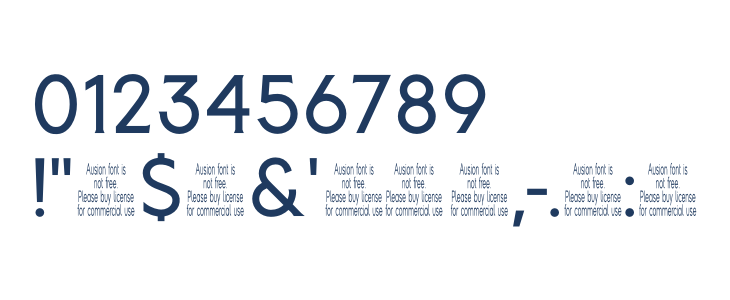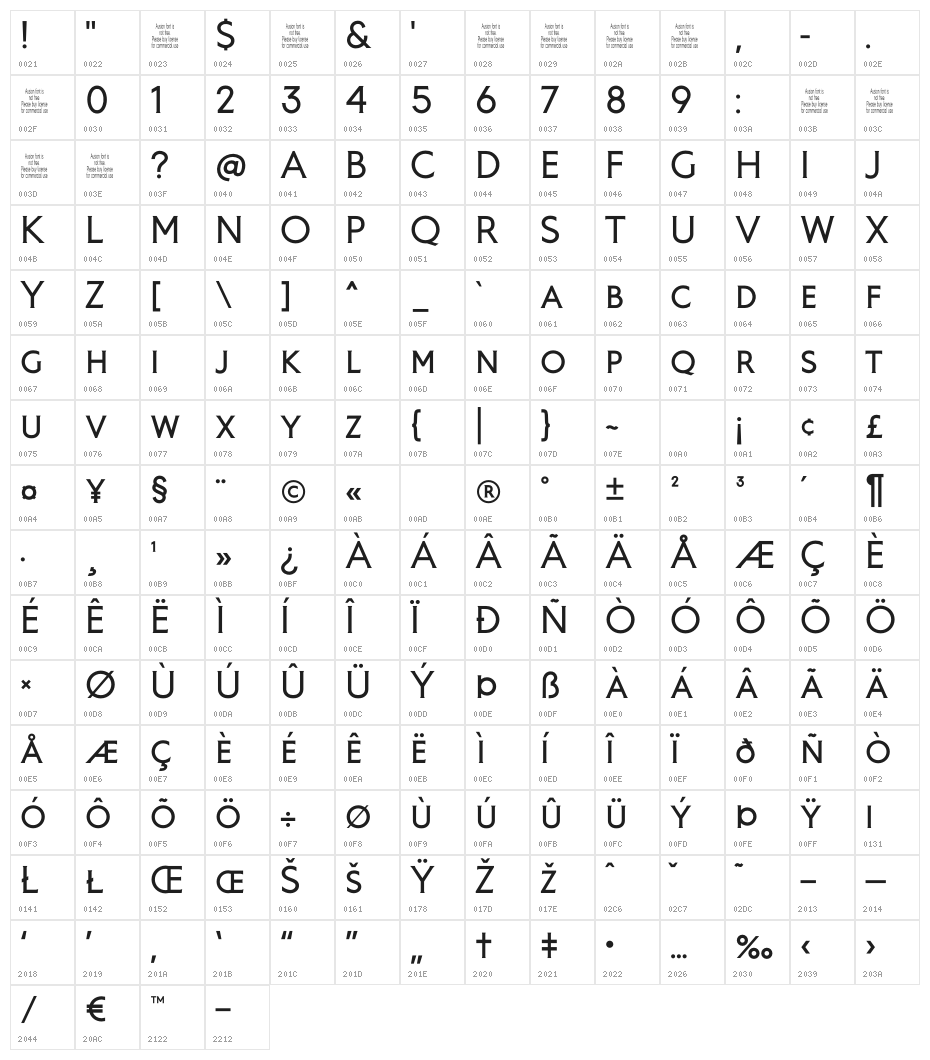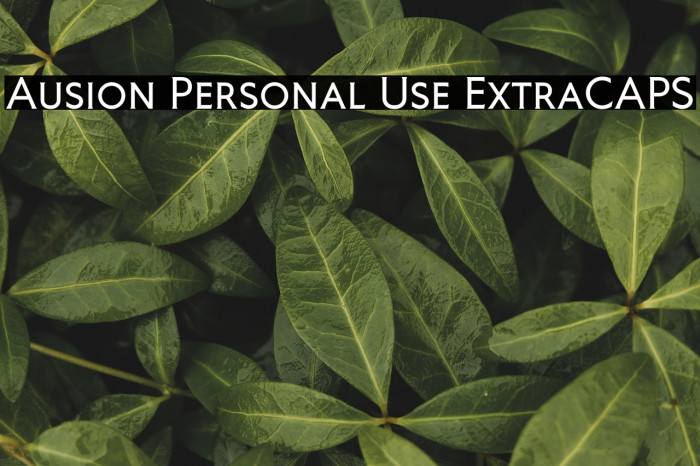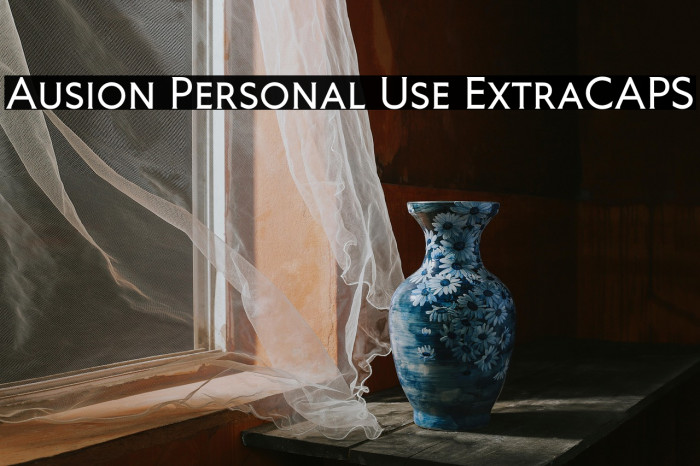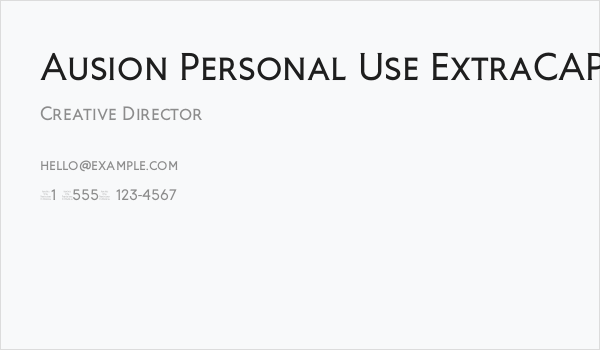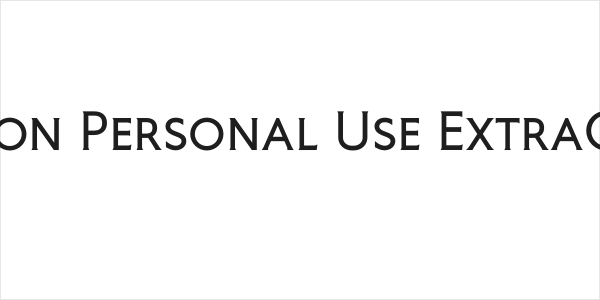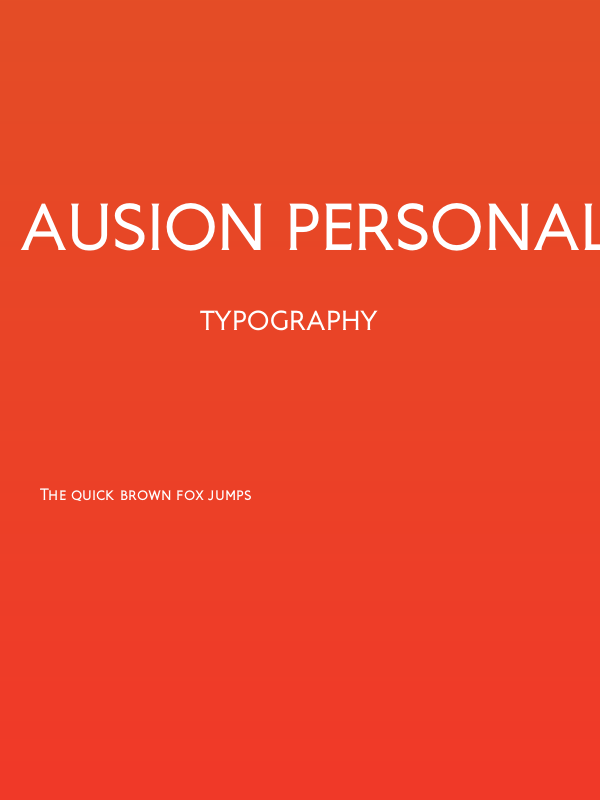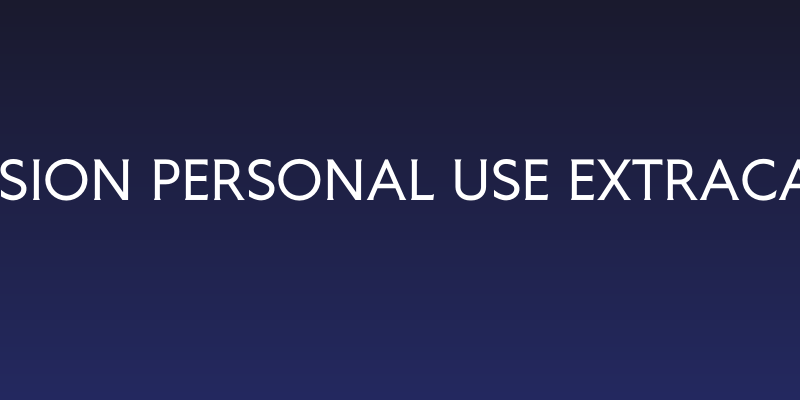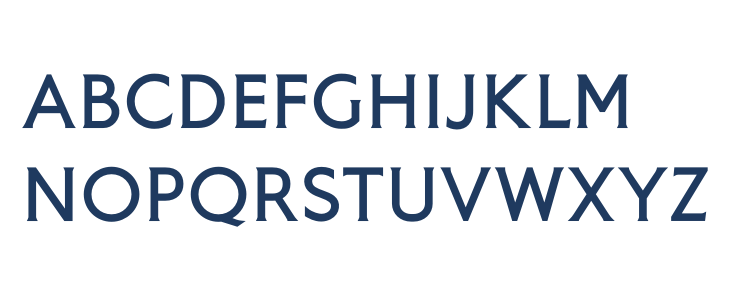
Ausion Personal Use ExtraCAPS Font
Ausion Personal Use ExtraCAPS Description
This font features a clean and modern design with a focus on readability and elegance. The characters are well-proportioned, with a slight emphasis on verticality that gives it a sophisticated appearance. The uppercase letters are bold and commanding, while the lowercase letters maintain a consistent style that complements the overall look. The numerals are clear and distinct, making them easy to read. Special characters are included, offering versatility for various uses. The font's design is suitable for both digital and print media, providing a professional and polished look.